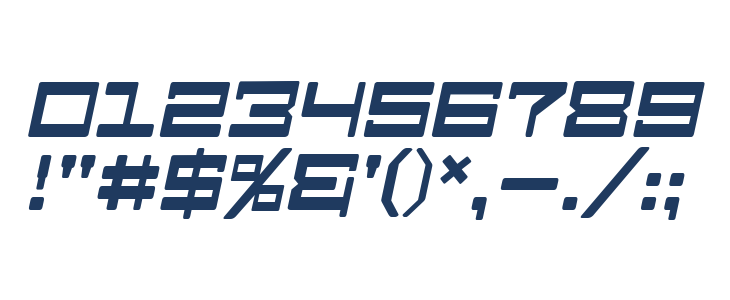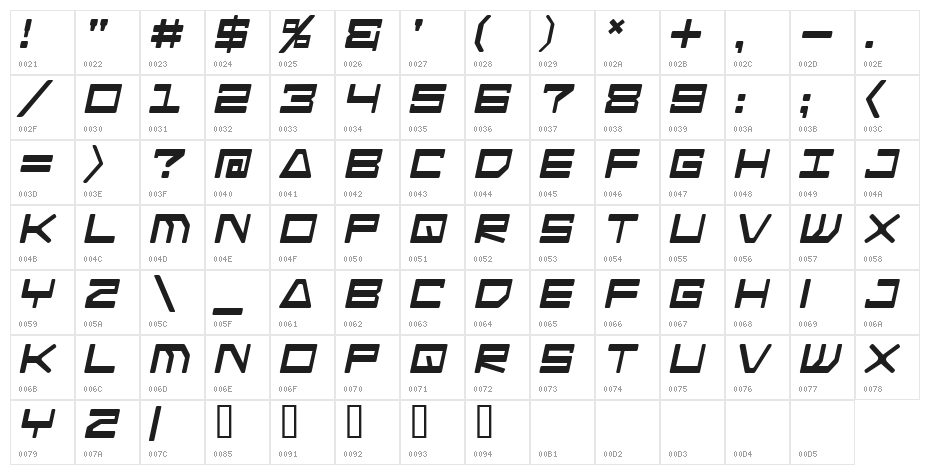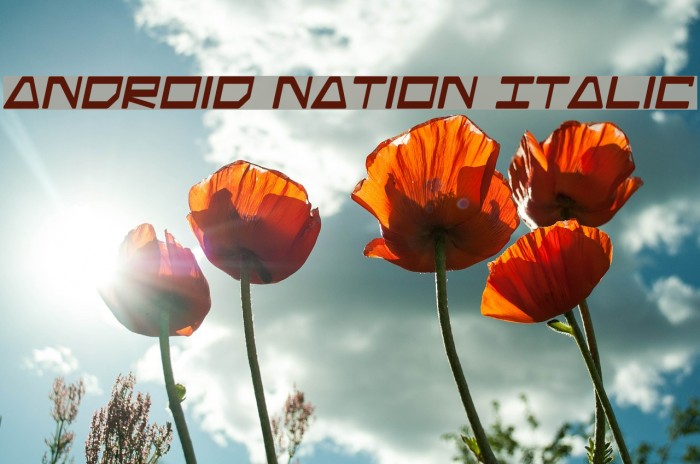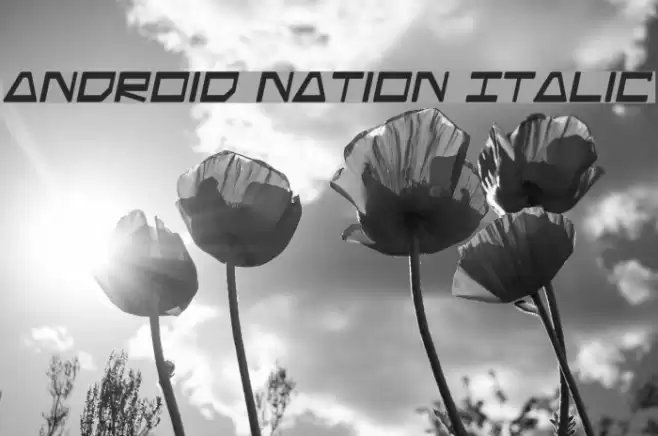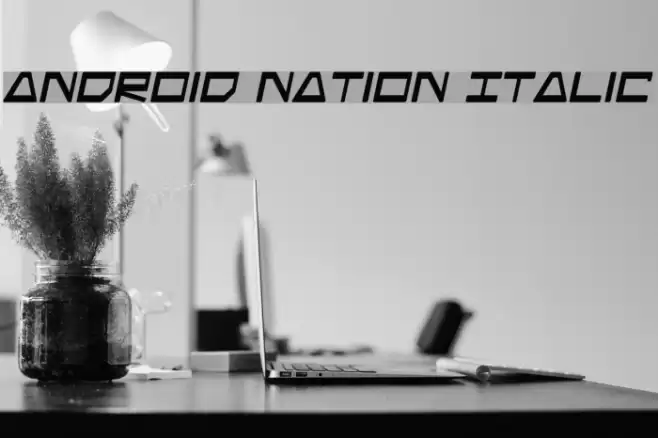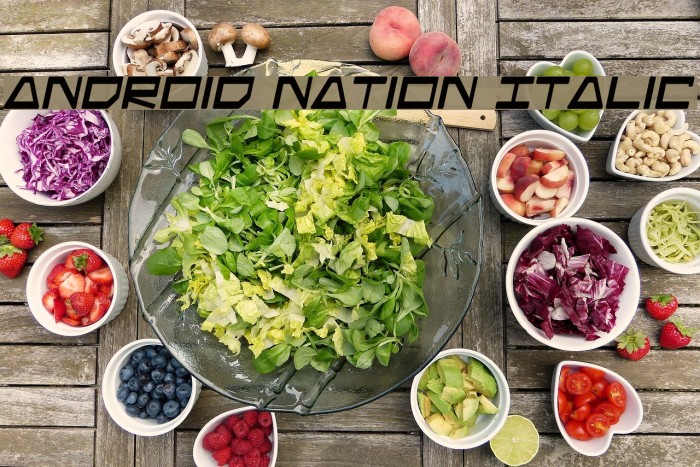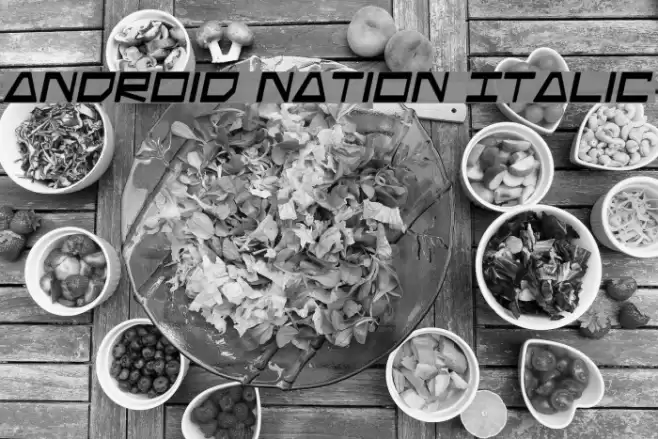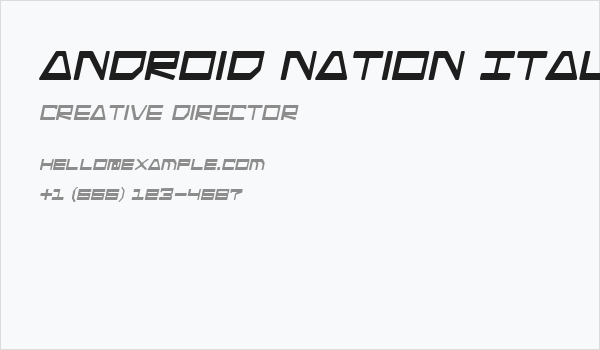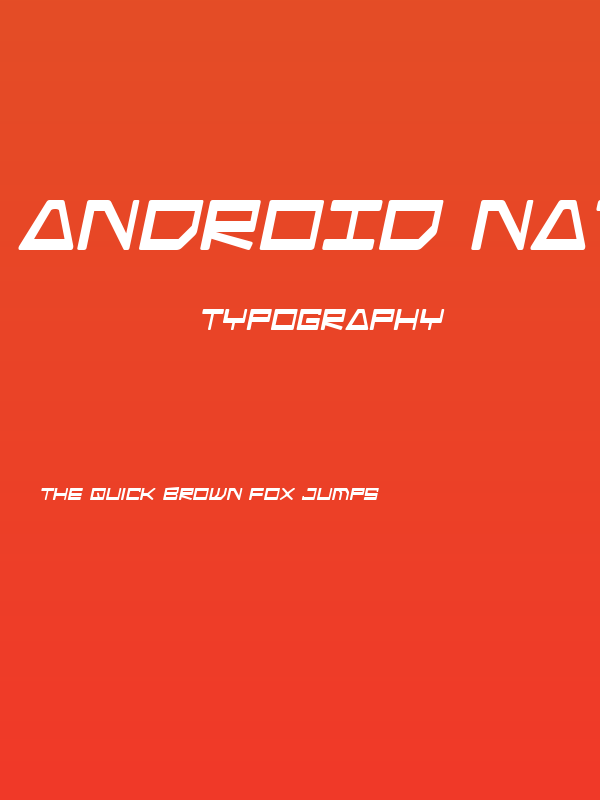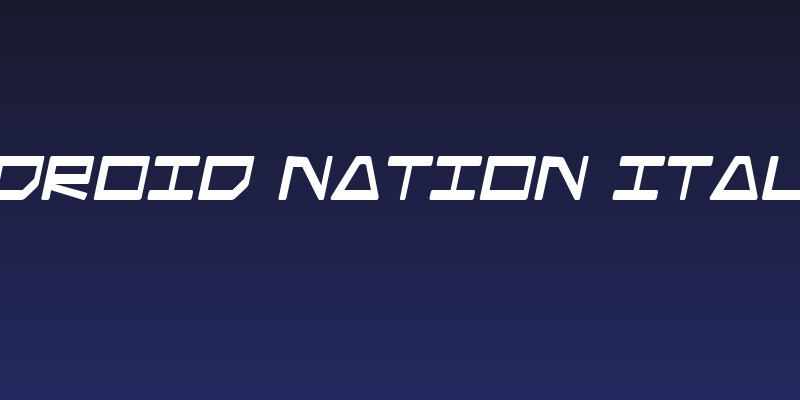
Android Nation Italic Font
Android Nation Italic Description
This font features a futuristic and angular design, characterized by its sharp edges and geometric shapes. The italic style adds a dynamic and forward-leaning appearance, enhancing its modern and tech-inspired aesthetic. Each character is distinct, with a consistent slant that gives the text a sense of motion and speed. The uppercase and lowercase letters maintain a uniform structure, while the numerals and special characters complement the overall design. This font is ideal for projects that require a contemporary and edgy look, making it suitable for technology-related branding, sci-fi themes, and innovative design concepts.
| Proposed Projects | Ideal for technology branding, sci-fi themes, and innovative design concepts. |